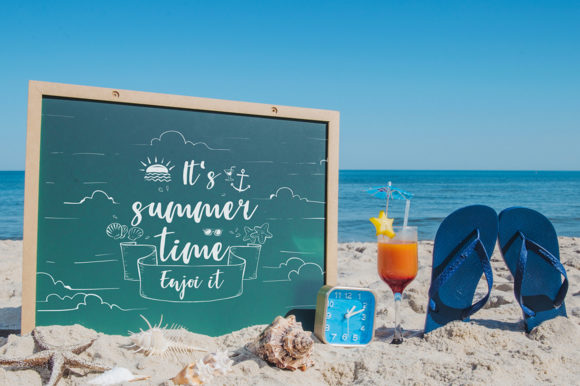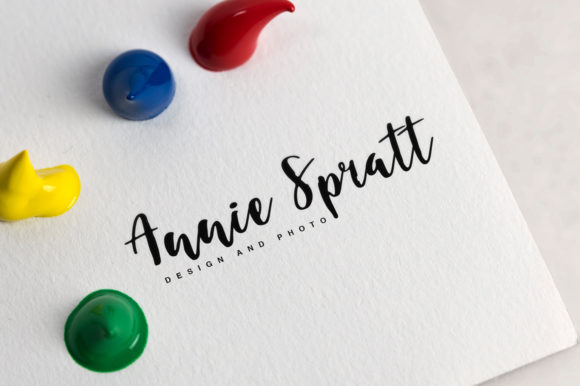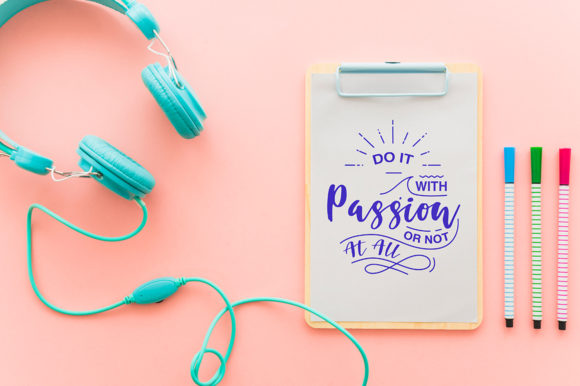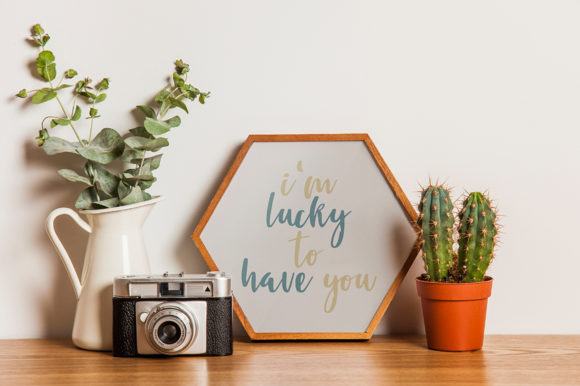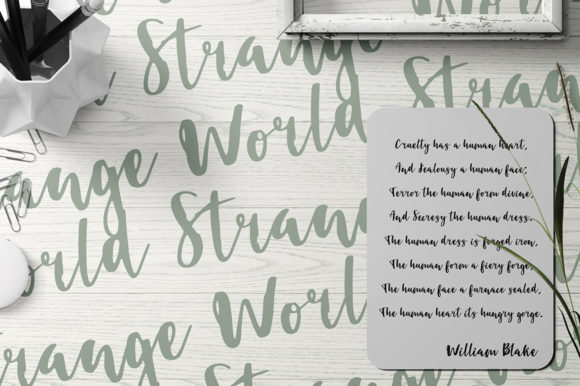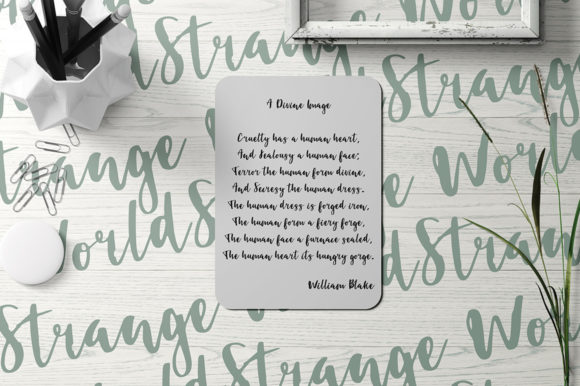
Introduction to Loveit Font
Loveit is a relaxed and fresh, summery handwritten font.
Beautiful and adept, this font fits each of your beach and summer relaxed projects Employ it confidently.